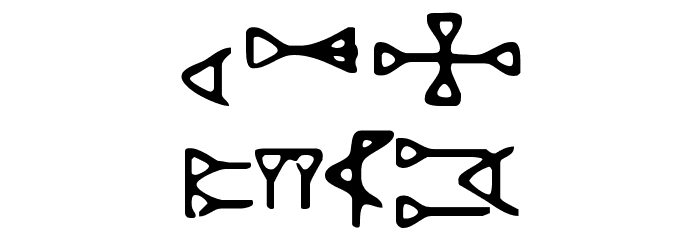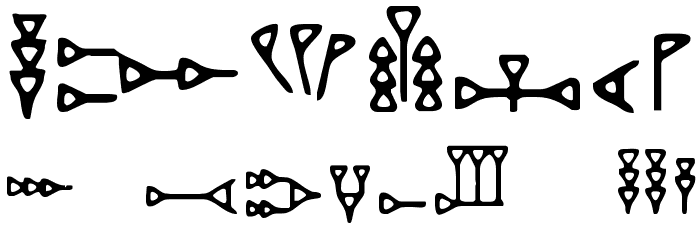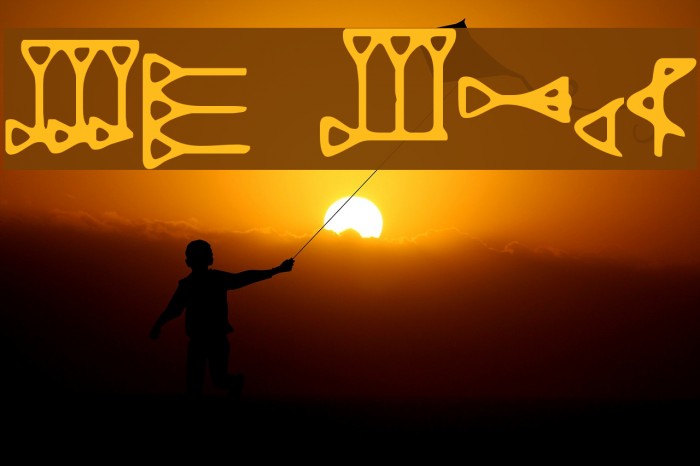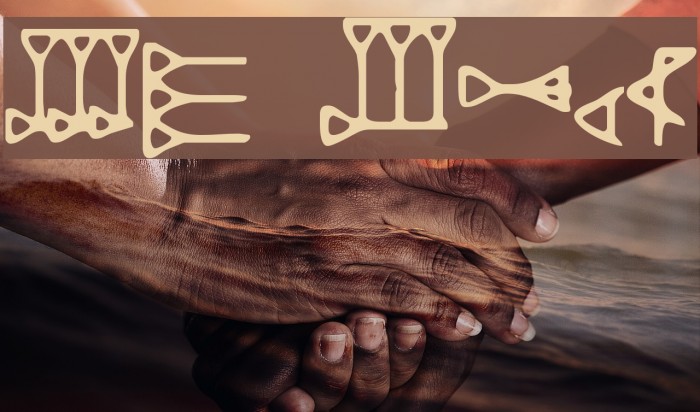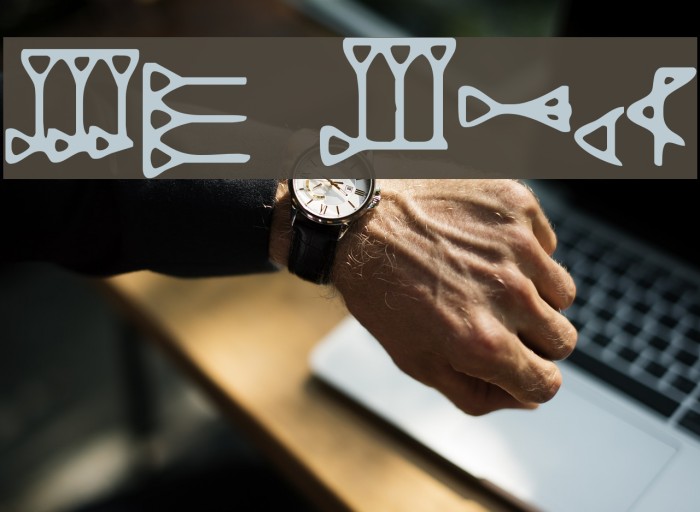
DH Ugaritic Font
This font is inspired by ancient Ugaritic script, featuring unique, angular characters that resemble cuneiform writing. The symbols are bold and distinct, with a historical and archaeological aesthetic. Each character is crafted with sharp edges and triangular forms, giving it an authentic ancient look. The font is highly decorative, making it suitable for projects that require a historical or cultural theme. Its distinct style is reminiscent of ancient inscriptions, providing a sense of mystery and antiquity.
A decorative font inspired by ancient Ugaritic script with bold, angular characters.
- Proposed Projects: Ideal for historical documentaries, archaeological presentations, themed event invitations, and educational materials on ancient cultures.
- Overall Style: Vintage
- Use Case: Logos, Headlines, Themed Events